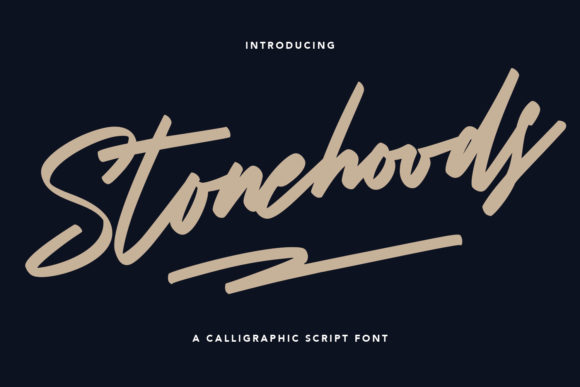
Stonehoods Font
Immerse Yourself in the Enchanting World of Stonehoods Font: The Epitome of Script Tattoo Typography
Unleash the boundless allure of the Stonehoods font, a captivating script typeface that will transform your designs into mesmerizing works of art. With its sweeping strokes and elegant curves, Stonehoods embodies the essence of modern handwriting, bringing a touch of authenticity and personality to every project.
Journey through a realm of creativity, where Stonehoods' versatility knows no bounds. Whether you're designing striking logos, eye-catching social media graphics, or stunning invitations, this font will elevate your creations to new heights. Let your imagination soar as you craft designs that resonate with beauty and elegance.
Discover the limitless potential of Stonehoods, the perfect font for script tattoos. Its carefully crafted characters flow seamlessly, capturing the essence of heartfelt expressions and personal stories. Each letter dances upon the page, conveying emotions and messages with a depth and poignancy that will leave a lasting impression.
With Stonehoods at your fingertips, you'll embark on a creative odyssey, transforming your ideas into tangible masterpieces. Its user-friendly nature makes it accessible to both seasoned designers and those just starting their artistic journey. Unleash your inner artist and let Stonehoods guide you towards design greatness.
Don't settle for ordinary fonts that blend into the background. Dare to be different, to make a statement that reflects your unique style and vision. Embrace the magic of Stonehoods, and watch as your designs blossom into captivating works of art that leave an indelible mark on the world.